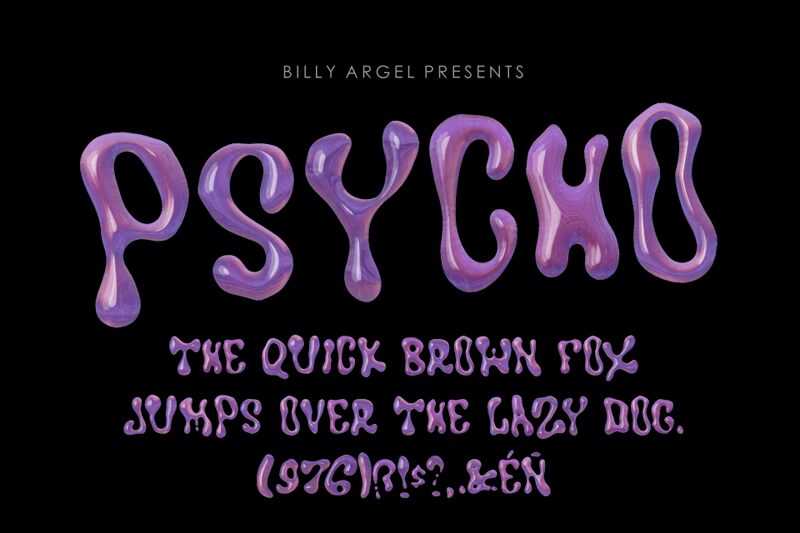
Psycho, the groovy display font designed by Billy Argel Fonts, is a mesmerizing typeface that demands attention. With its semi-condensed width, it exudes an air of retro coolness that makes it perfect for a variety of projects.
Use it to bring vintage flair to album covers, posters, or party invitations. The bold and psychedelic curves of Psycho will also make your branding materials stand out from the crowd. Let this font transport you back to the colorful and vibrant era of the 1960s, where anything was possible and creativity knew no limits.